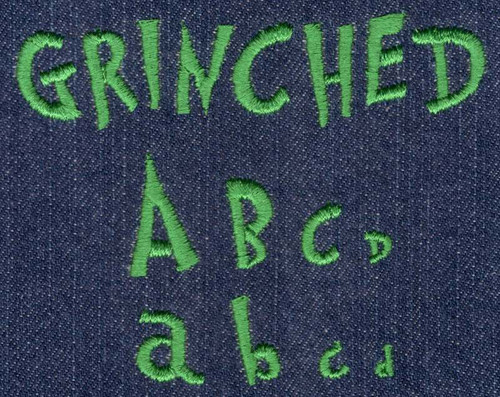
387 Grinched Mini Satin Font
Grinched Mini Satin Font comes in 0.25", 0.5", 0.75" and 1" heights based on the capital "A". All sizes finished in standard satin stitch and include uppercase letters, lowercase letters, numbers and four punctuation marks.